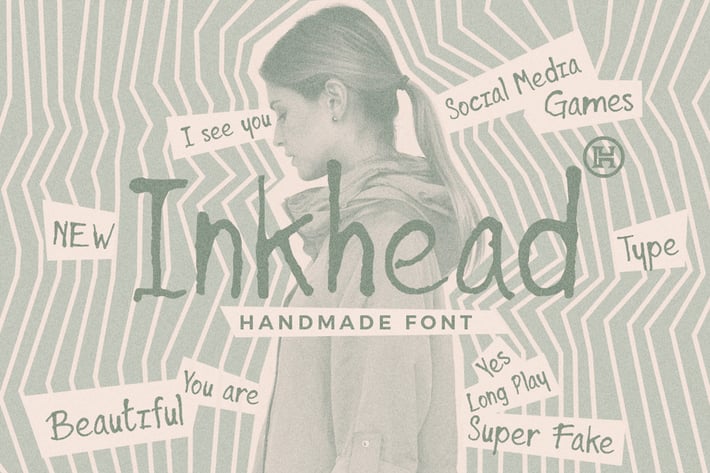
Inkhead Typeface|Pen Stroke Handmade Font
Inkhead is a hand made typeface that gives a grunge look. With it's unique and distinct characteristics it sets itself apart, while also maintaining a strong timeless appeal overall, has 252 glyphs and supports multiple foreign languages. Is a perfect font for industrial poster designs, headers, small and block text.